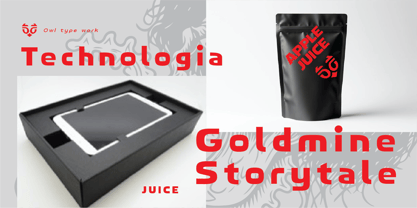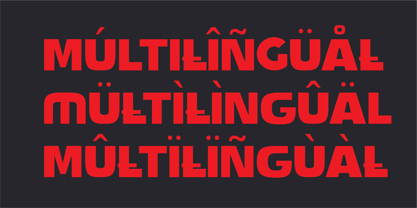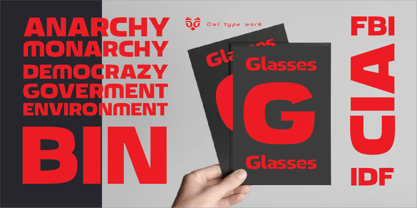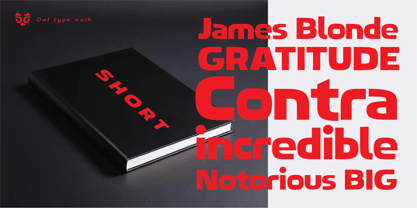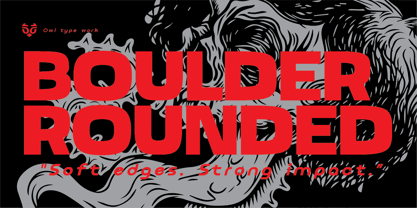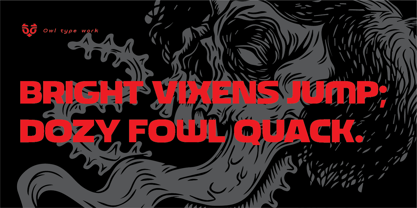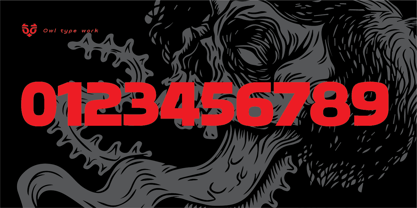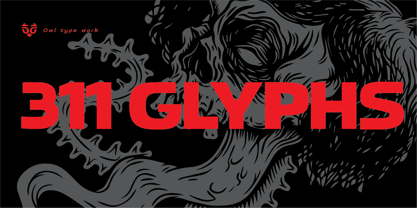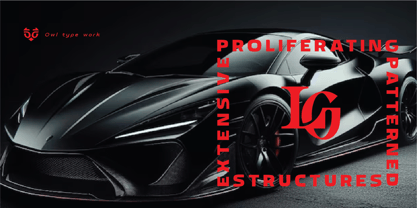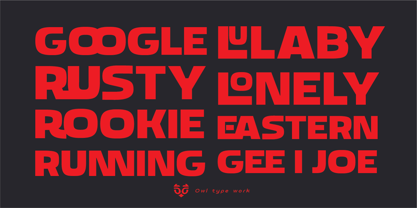
Boulder Rounded O
The Boulder Rounded O Font Family was designed by Galang Persada and published by O Type Foundry. Boulder Rounded O contains 1 styles. More about this family
Step into the bold and modern world of Boulder Rounded O — a geometric sans serif with smooth, rounded edges that radiate confidence and friendliness. Designed for impactful headlines, branding projects, and digital interfaces, this typeface blends contemporary style with timeless readability.
With its strong presence and rounded details, Boulder Rounded O works perfectly across a variety of creative fields — from packaging and logos to posters, web design, and social media graphics. Every letter has been carefully crafted to strike the perfect balance between modern minimalism and playful energy.
Boulder Rounded O stands out with its commanding presence and engaging rounded forms, making it an indispensable asset across diverse creative landscapes. Whether you're building a brand identity, designing eye-catching visuals, or elevating digital products, this typeface will give your work a fresh, powerful, and memorable voice.